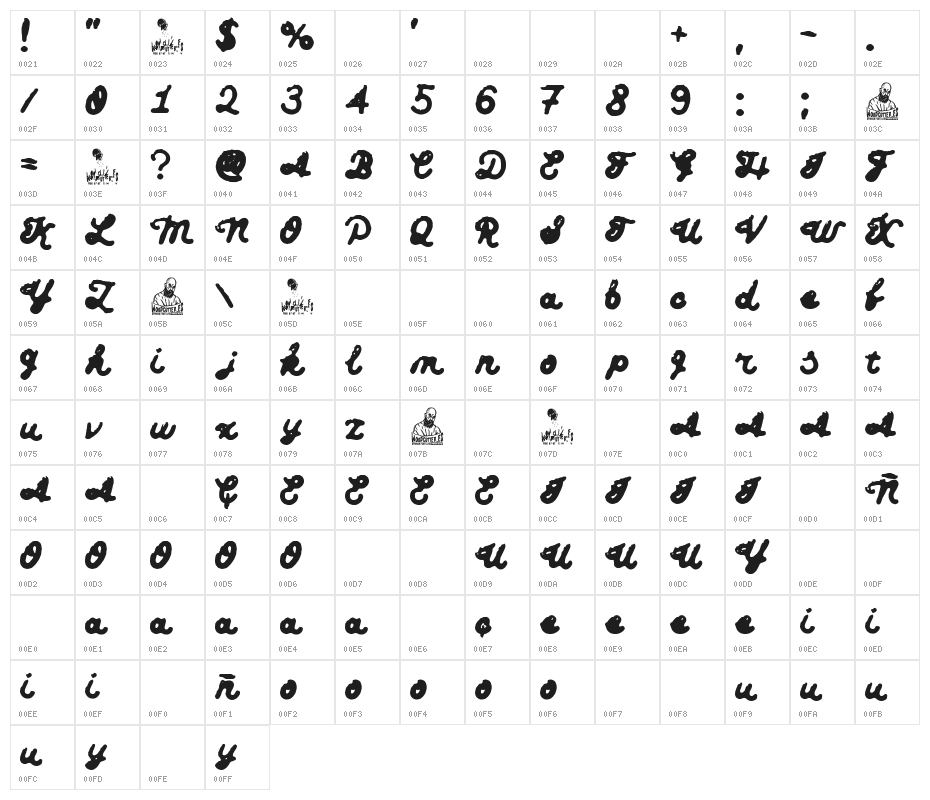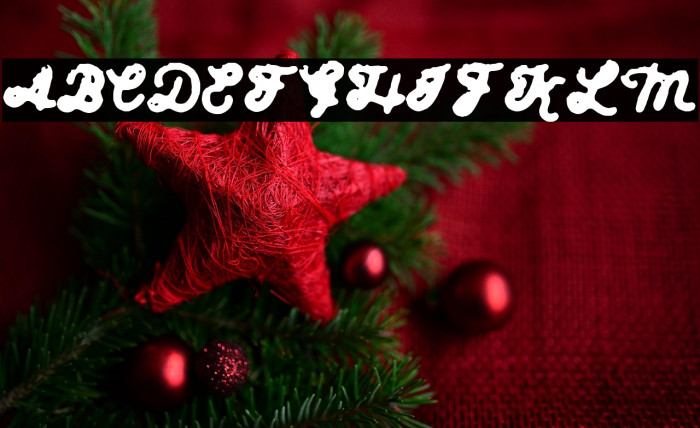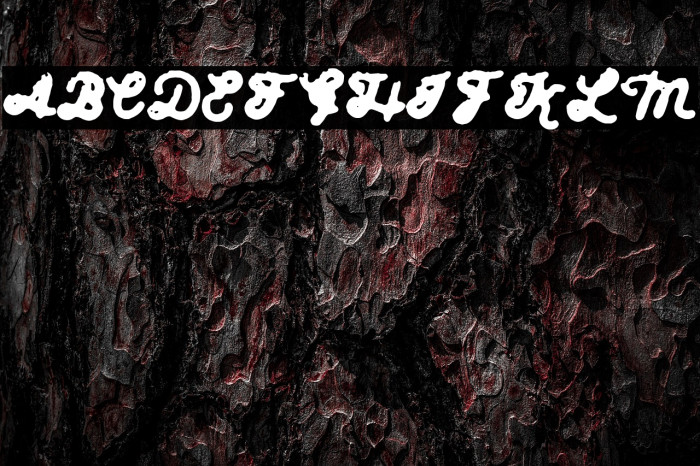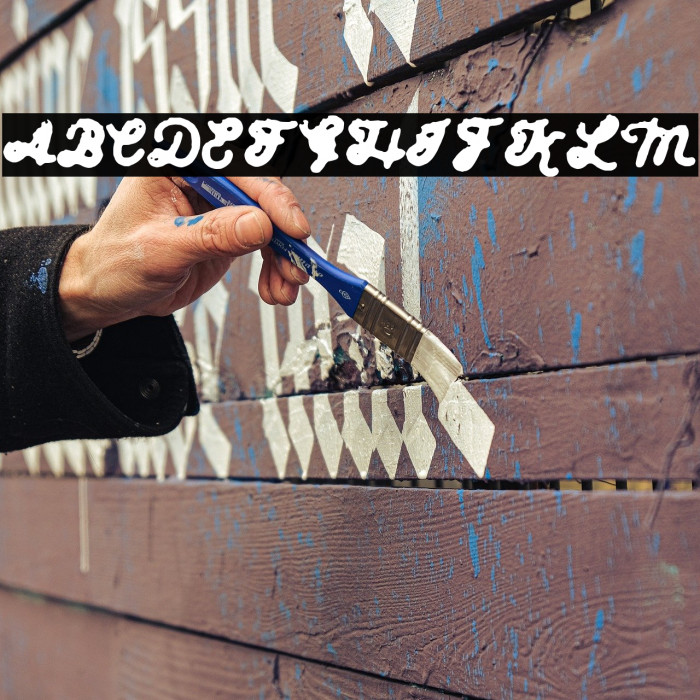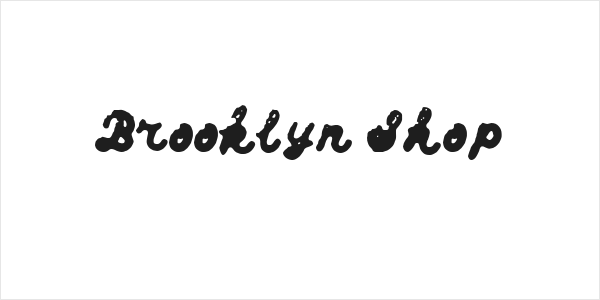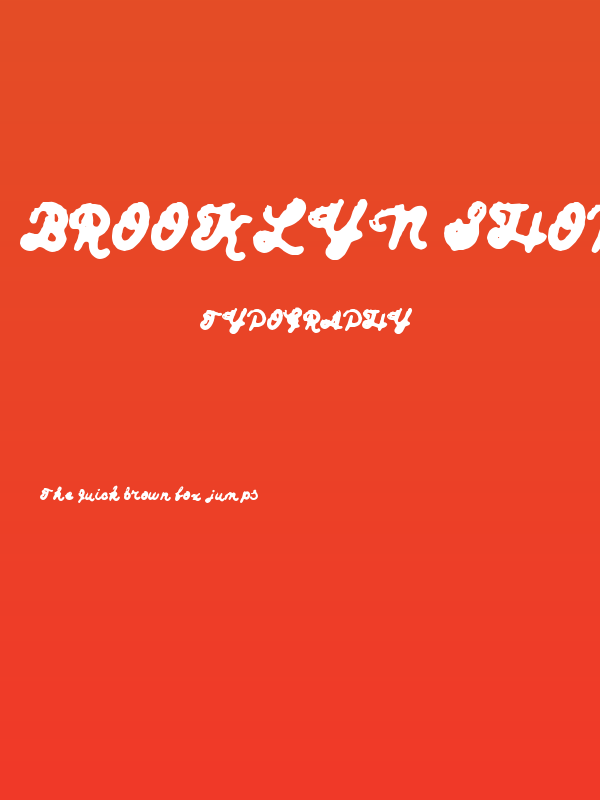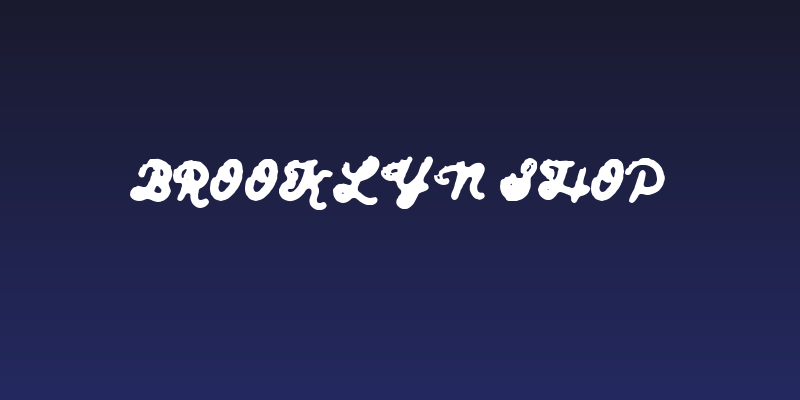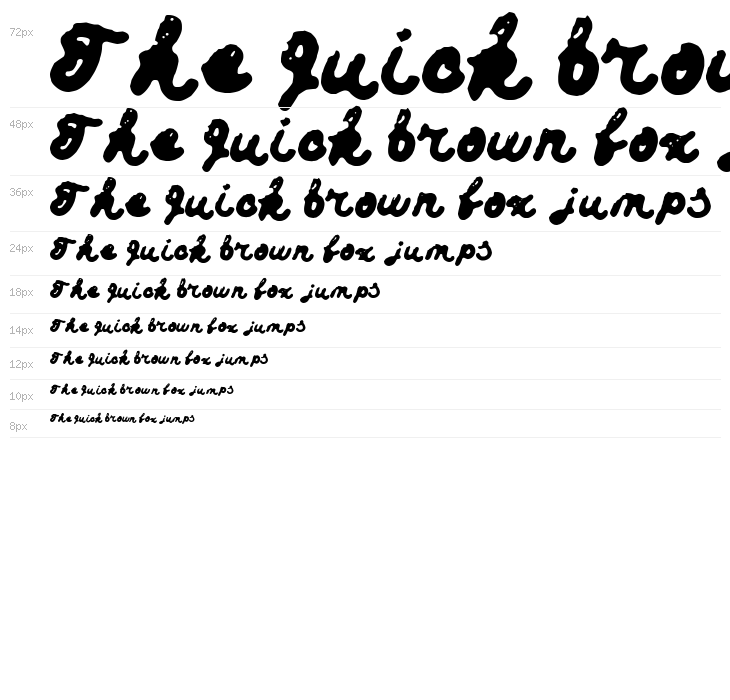
Brooklyn Shop Font
Brooklyn Shop Description
A bold, decorative script font with a playful and artistic style, featuring irregular and fluid strokes.
| Use Case | Logos, Posters, Artistic projects |
| Proposed Projects | Posters, logos, creative branding, artistic projects. |